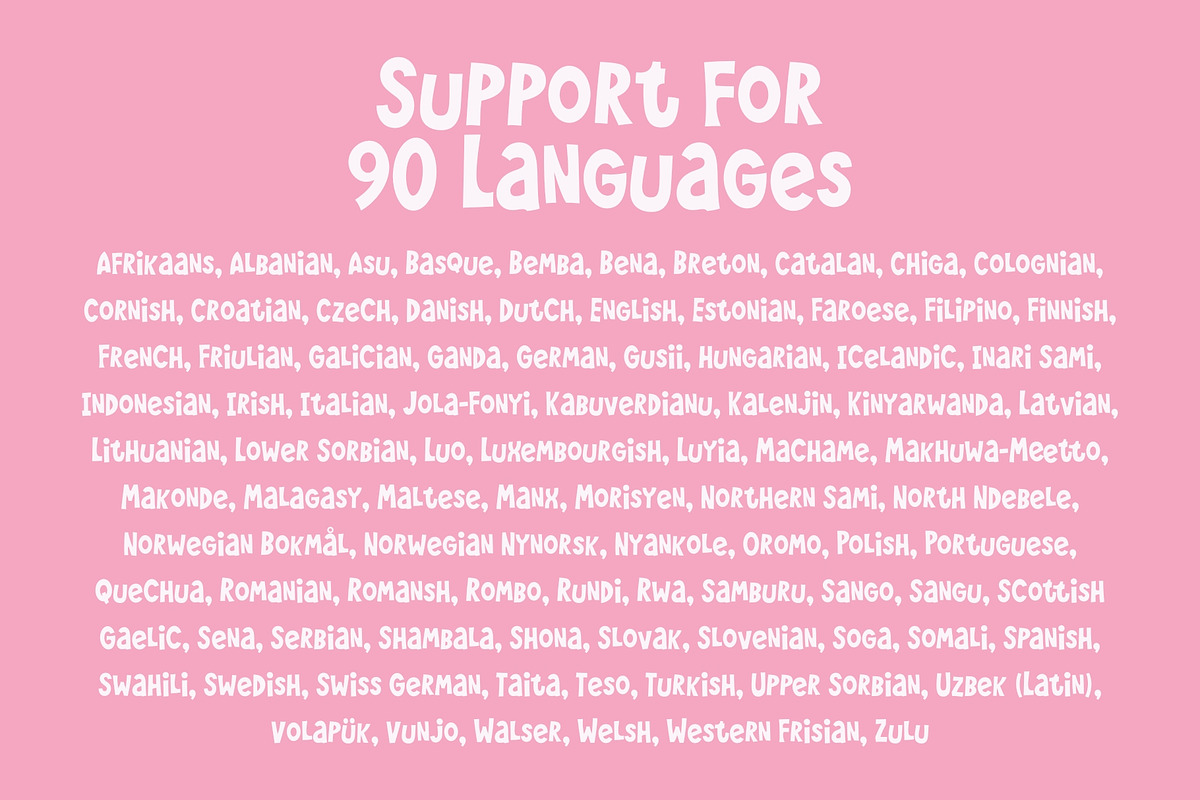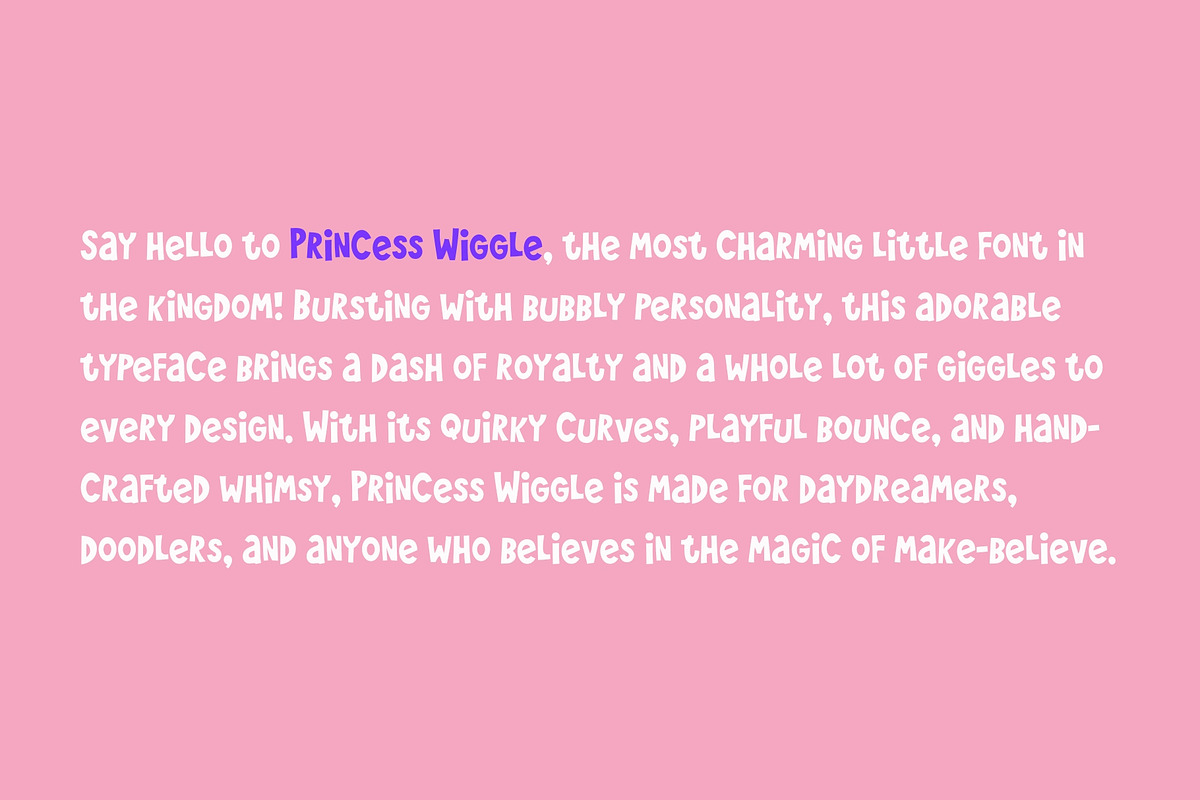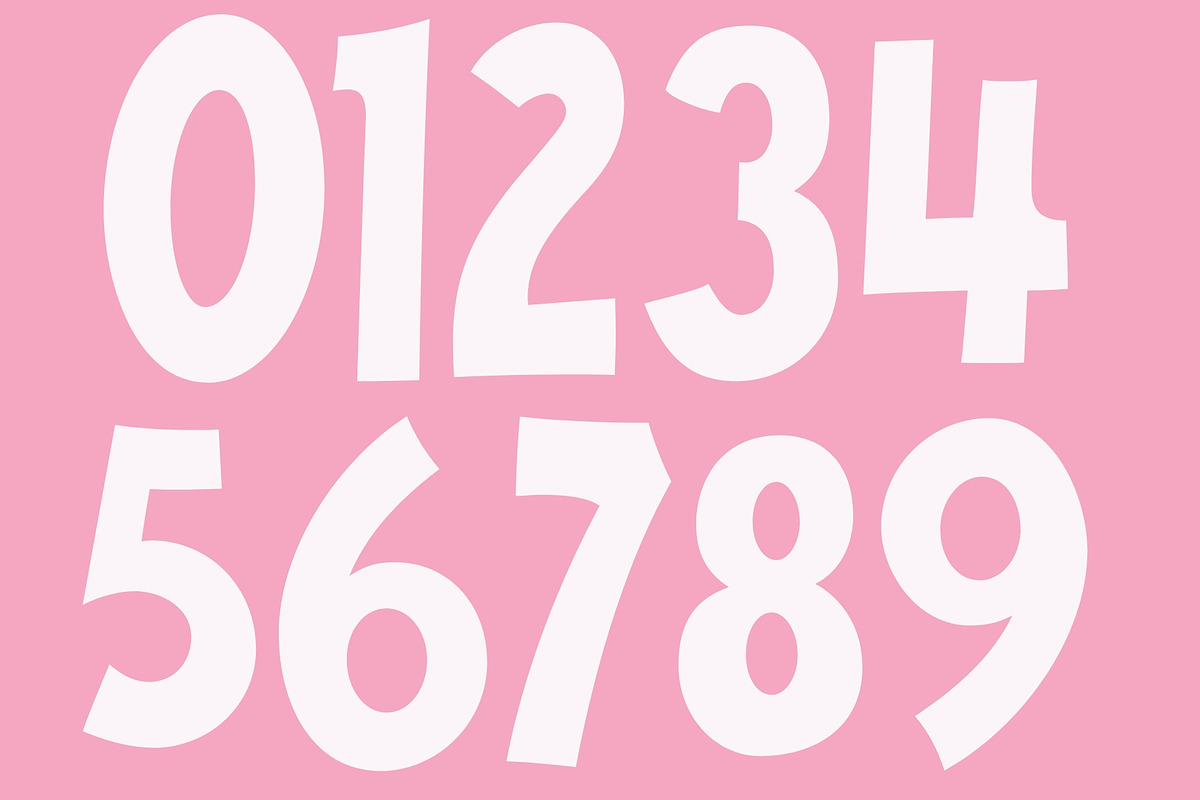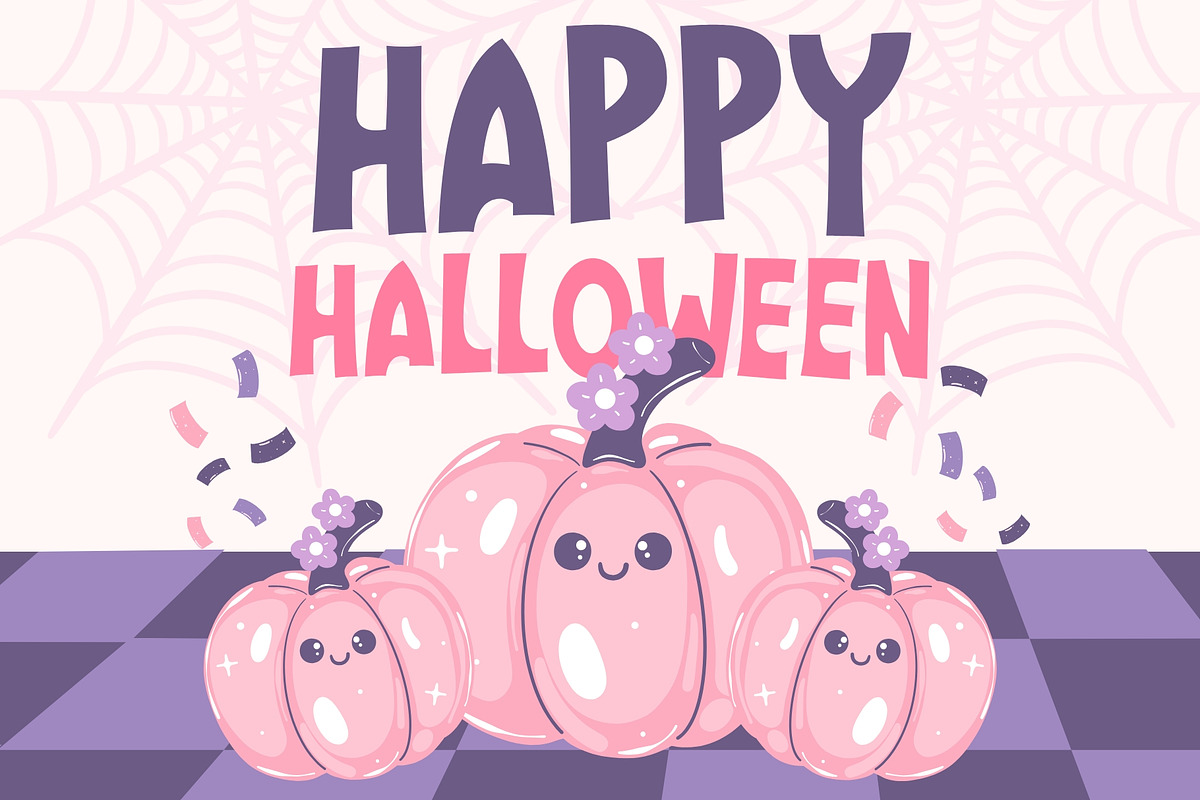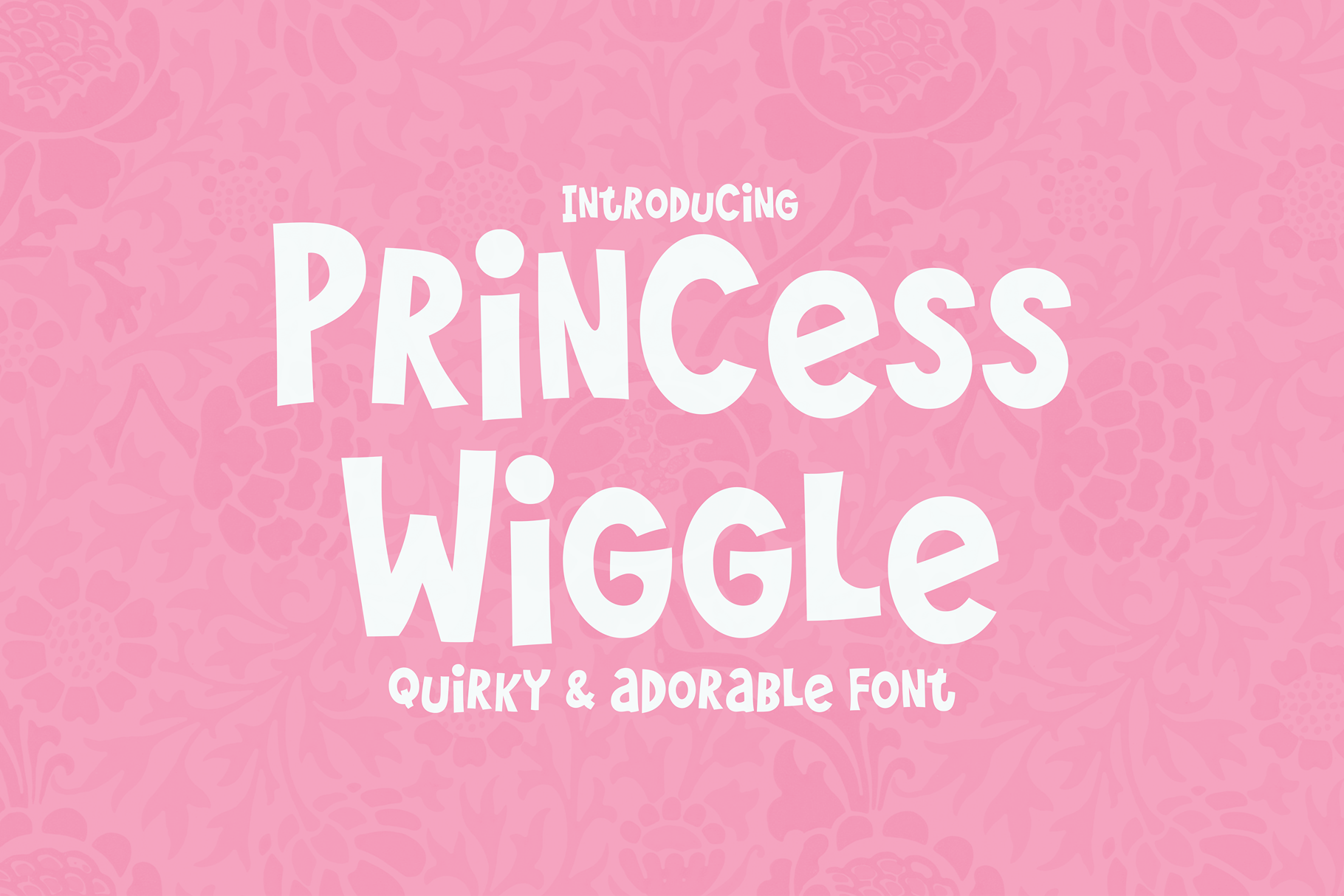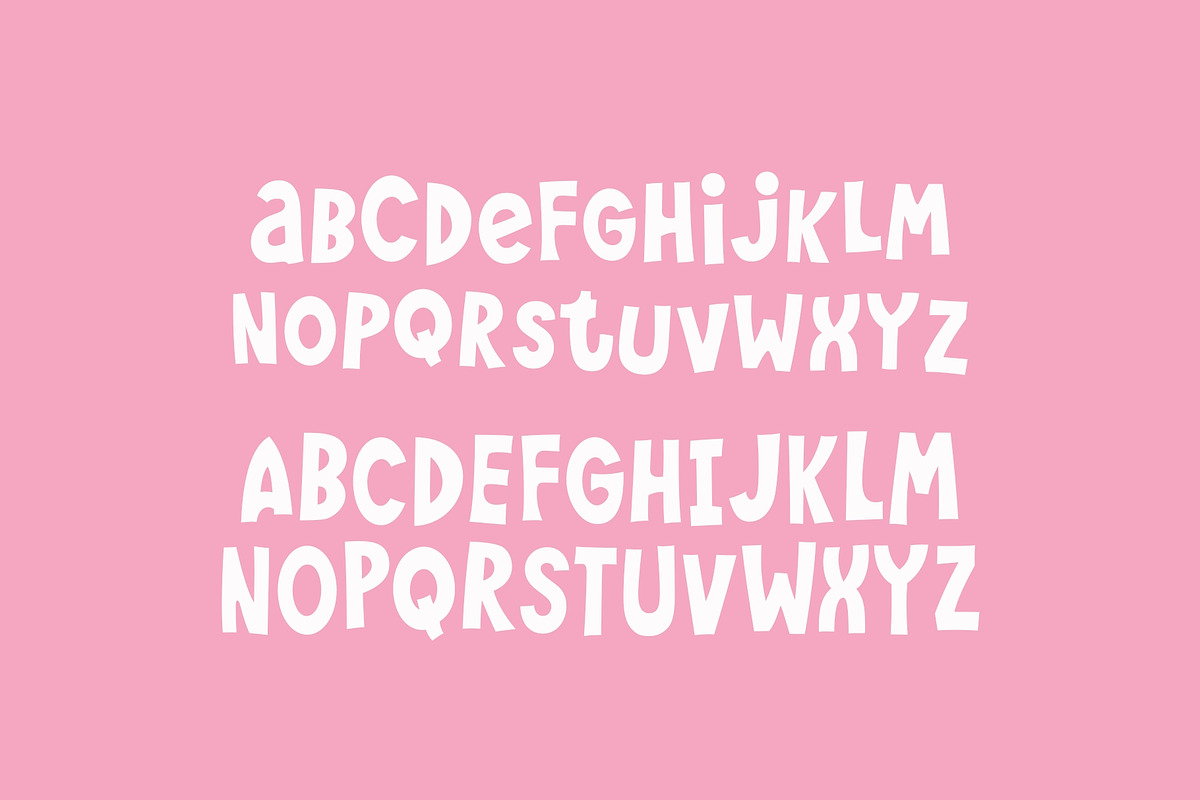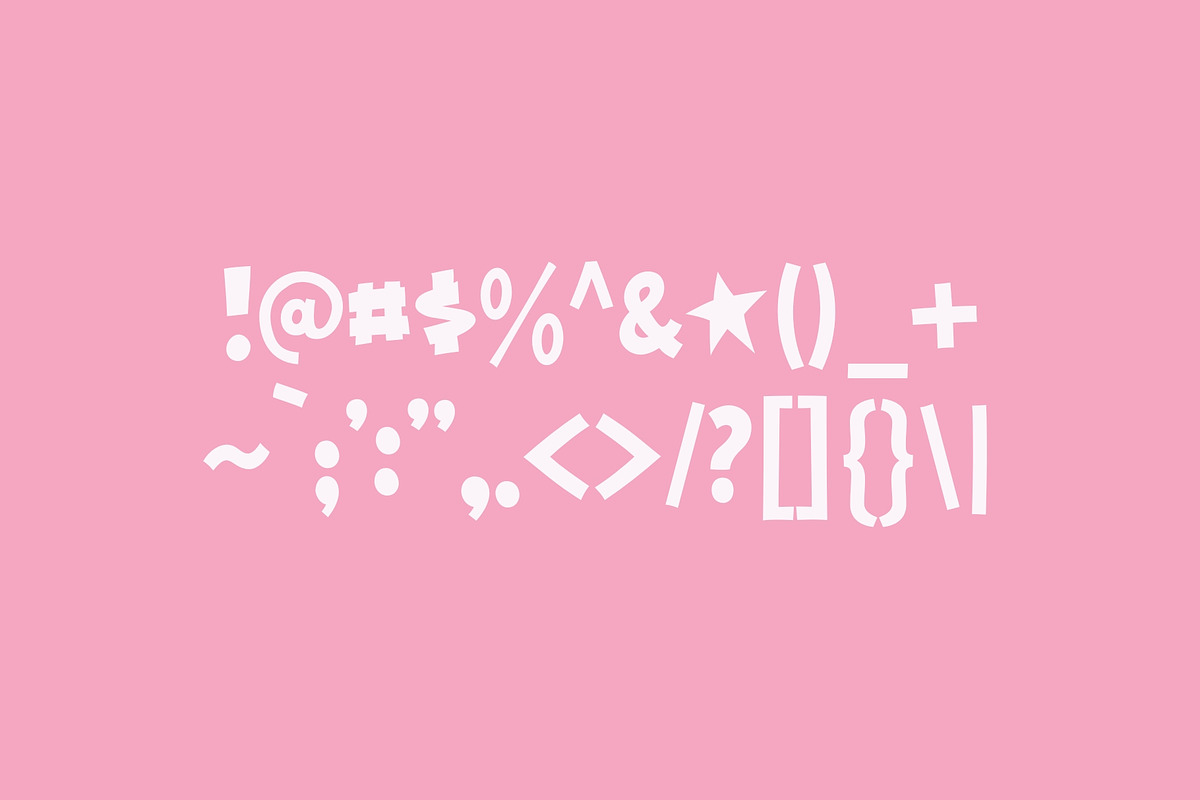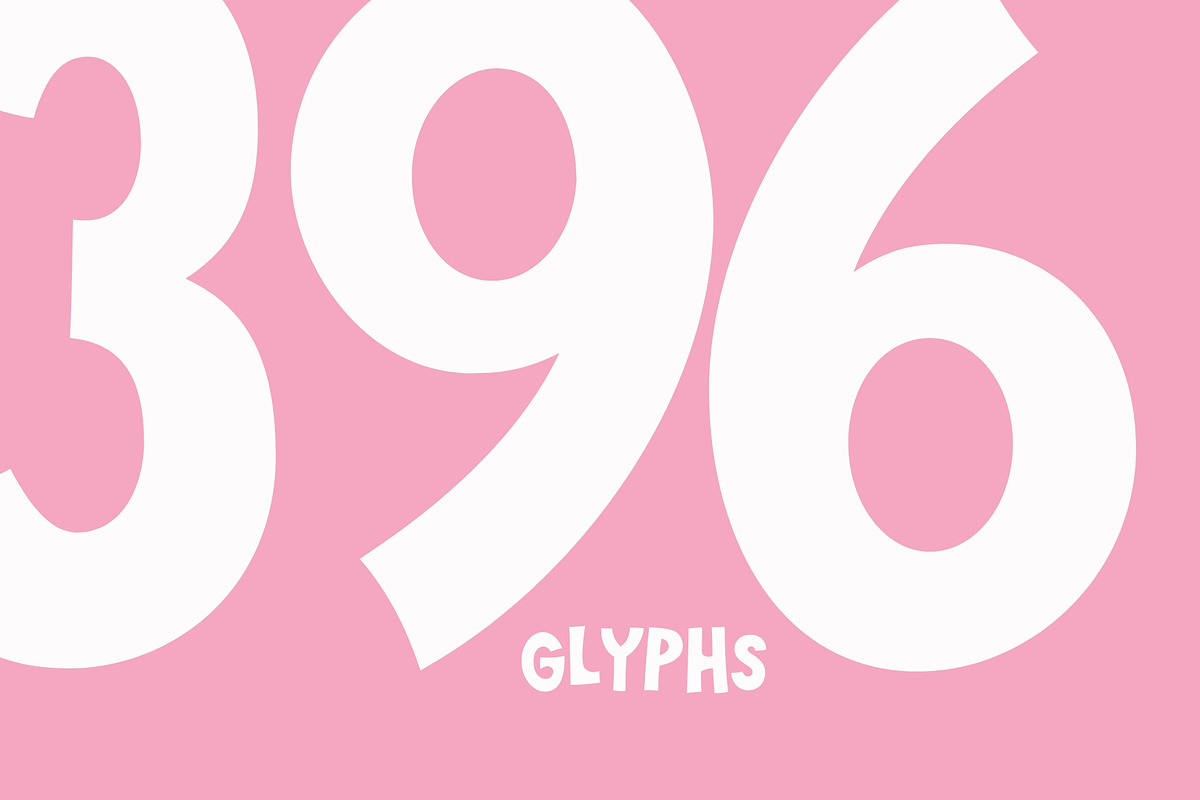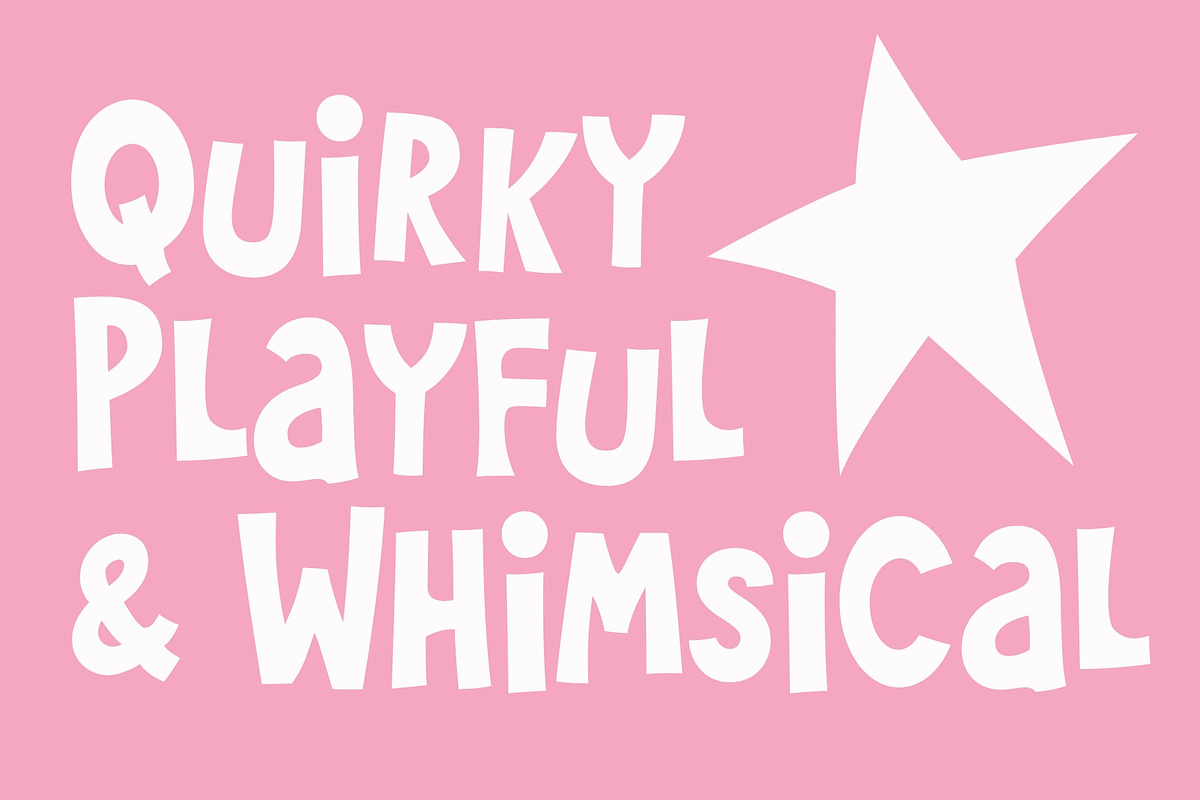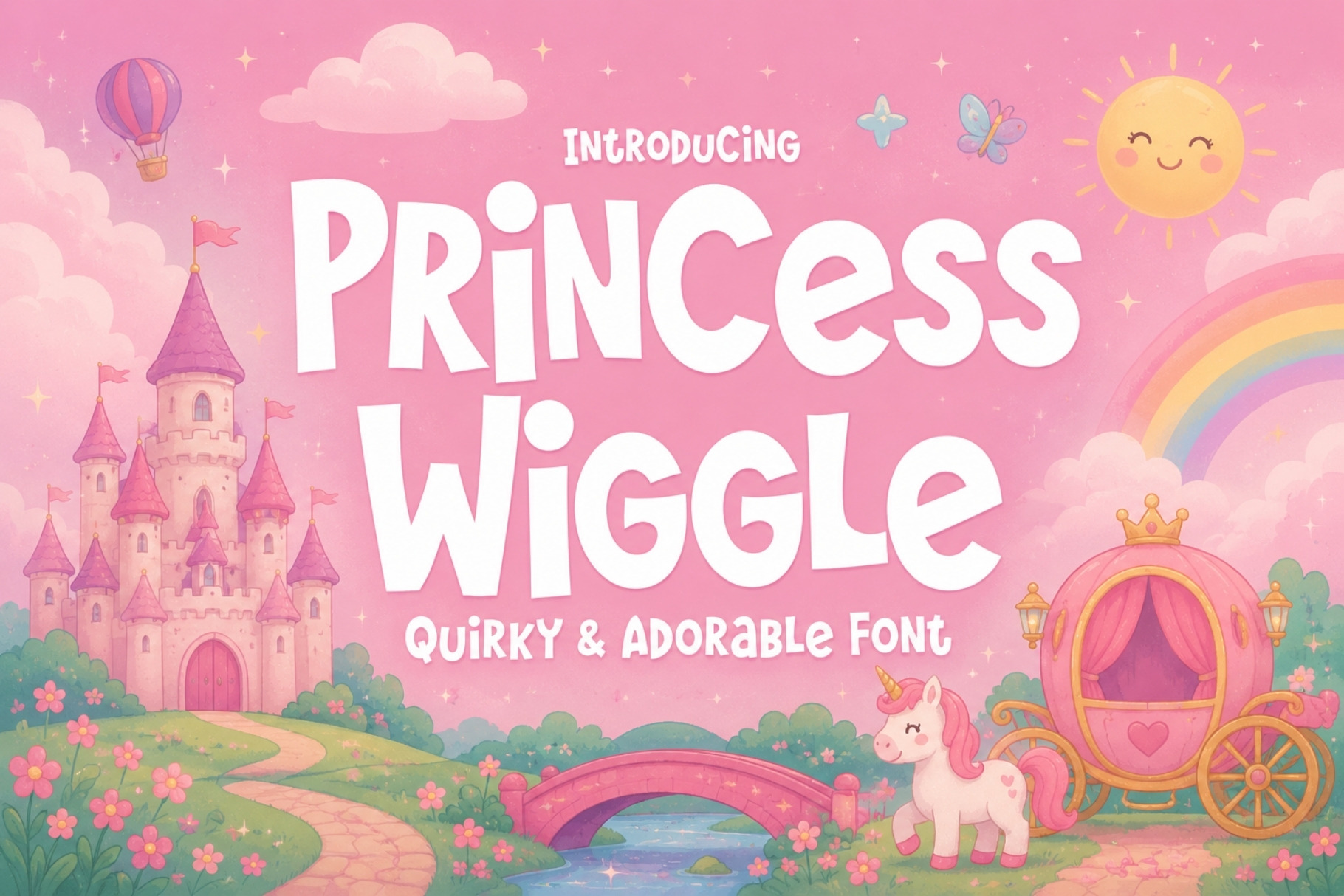
Princess Wiggle - Adorable Font
Say hello to Princess Wiggle, the most charming little font in the kingdom! Bursting with bubbly personality, this adorable typeface brings a dash of royalty and a whole lot of giggles to every design. With its quirky curves, playful bounce, and hand-crafted whimsy, Princess Wiggle is made for daydreamers, doodlers, and anyone who believes in the magic of make-believe.
Kid-friendly logos & branding
Party invitations & birthday cards
Storybooks, stickers, labels, and posters
Teachers, crafters, and creatives who want to sprinkle joy into every project
Whether you're designing a fairy tale invitation or a sweet classroom worksheet, Princess Wiggle will twirl its way into hearts and bring smiles with every letter.